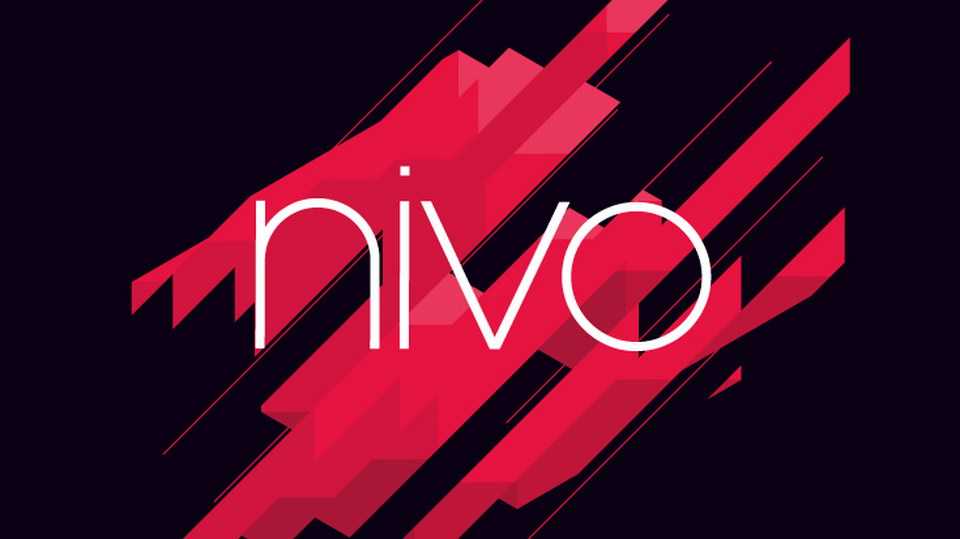
Nivo Font Family › Fontesk
Download Nivo typeface, a minimalist geometric font family in two weights. Nivo is suitable for logos, branding, short texts, posters and other graphic projects.
Designer: Nuno Leal